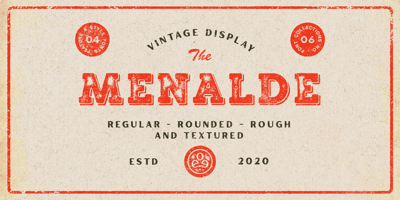
Menalde Font Family was designed by Edi Gunawan and published by Edignwn Type. Menalde contains 4 styles and family package options. The font is called “Menalde”, it is slab serif display with vintage themes. The font comes with 4 style typefaces (regular, rounded, rough and textured). Uppercase and lowercase have different unique stamp textures, so you can combine the same 2 letters and not be boring . The Menalde matches applies in some designs such as the logotype, poster, label, badge, packaging, branding, and more custom design.Menalde includes : 4 style typefaces (regular, rounded, rough and textured) All-caps, numeral, symbol and punctuation Multilingual PUA Encoded Thank you for your support and choosing us.